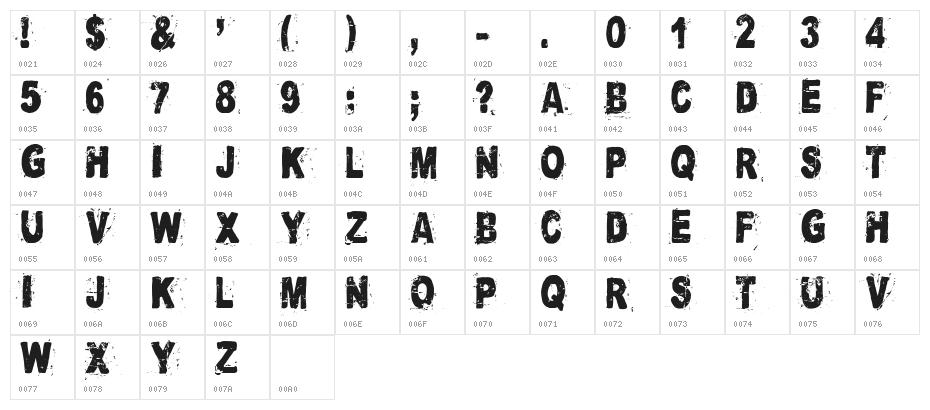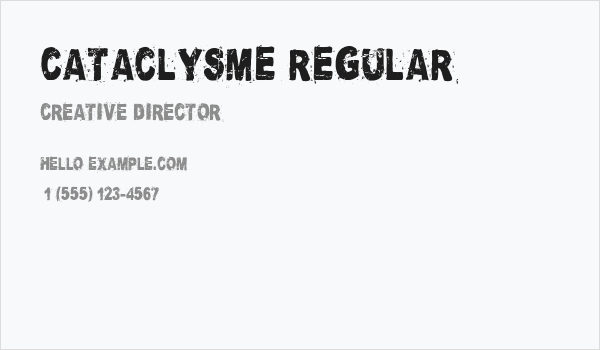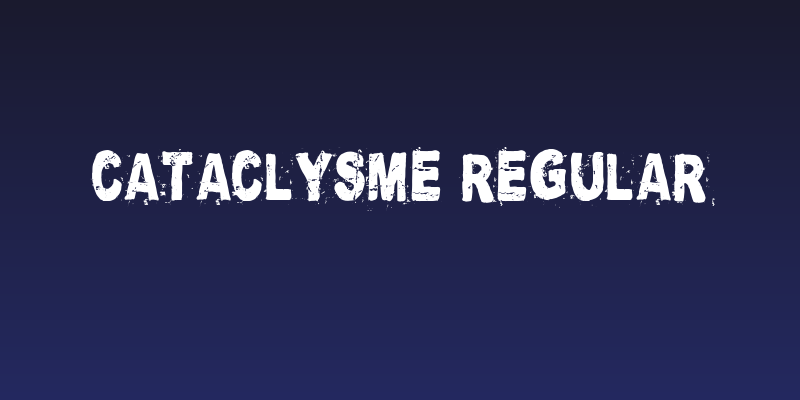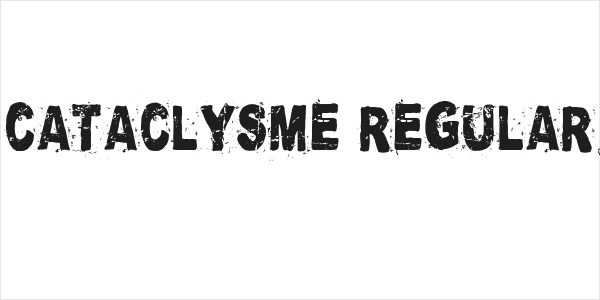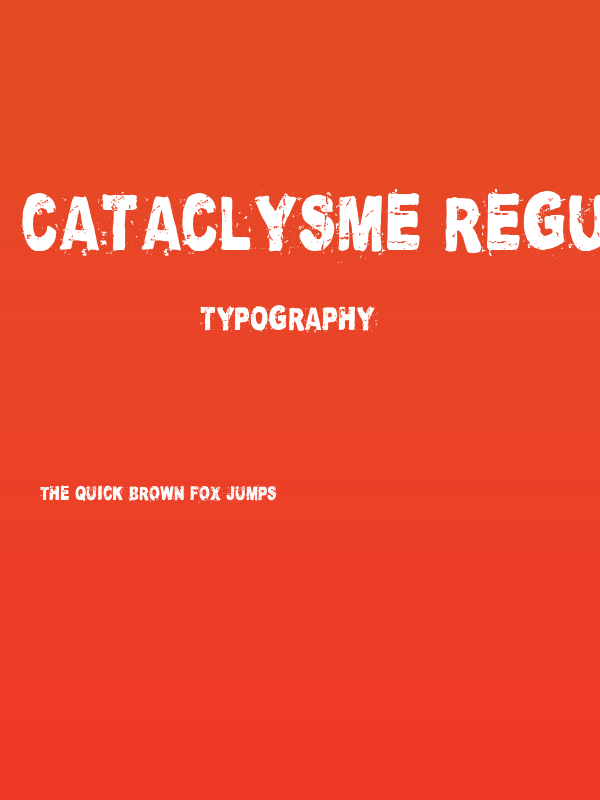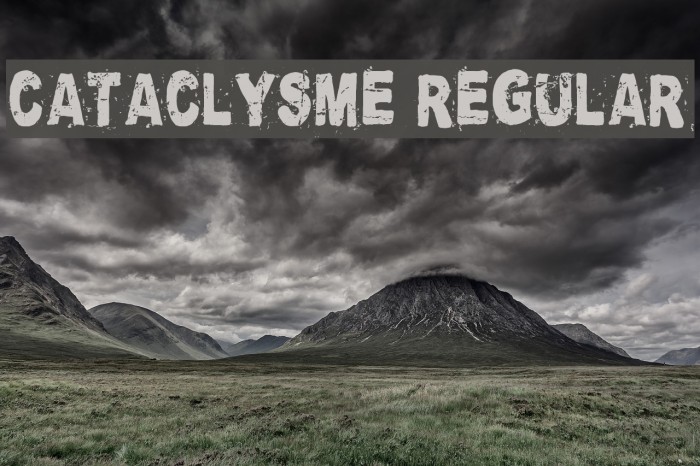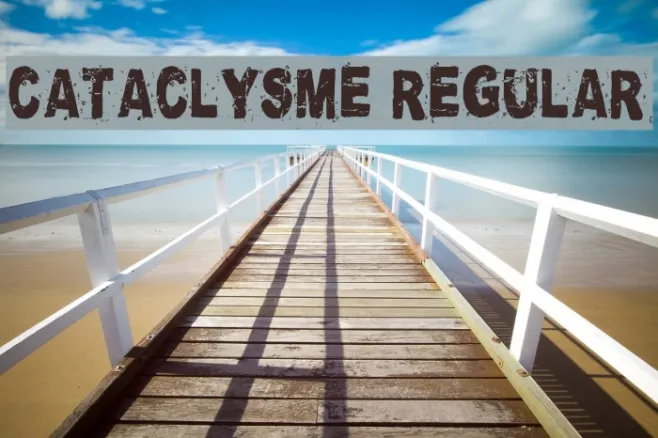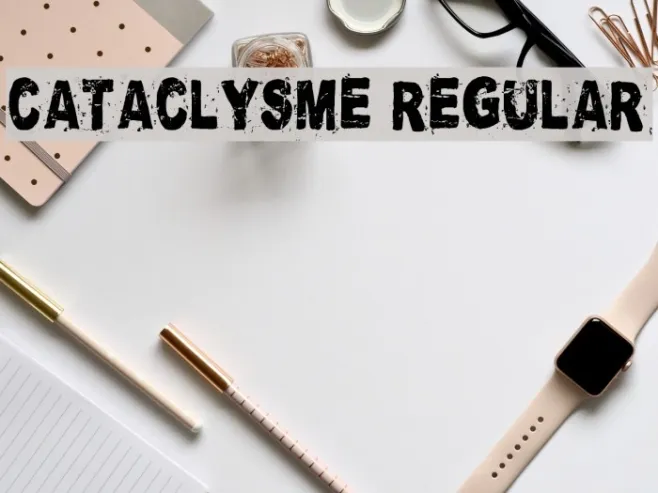
Cataclysme Regular Font
Cataclysme Regular Description
This font features a bold and distressed style, with a textured appearance that gives it a rugged and worn look. The characters are bold and impactful, making them stand out with a sense of urgency and intensity. The rough edges and uneven texture add a dynamic and gritty feel, suitable for designs that require a strong visual impact. The uppercase and lowercase letters maintain a consistent style, while the numerals and special characters complement the overall aesthetic. This font is ideal for projects that aim to convey a sense of raw energy and boldness.
| Proposed Projects | Ideal for posters, album covers, event flyers, and branding that requires a bold, gritty aesthetic. |